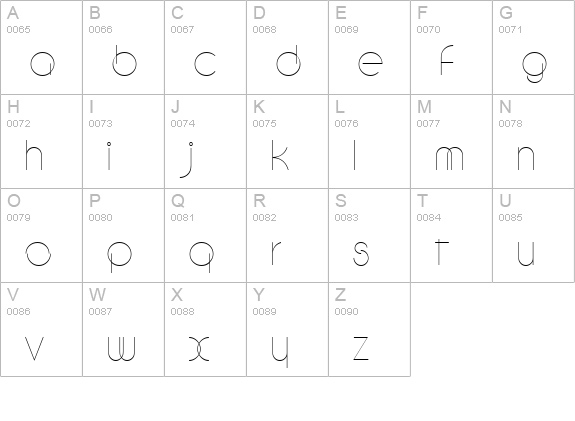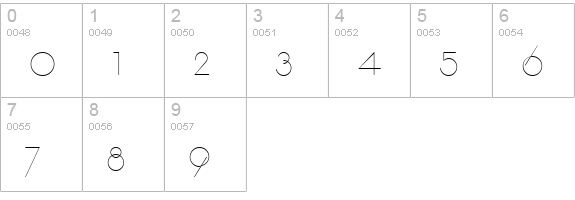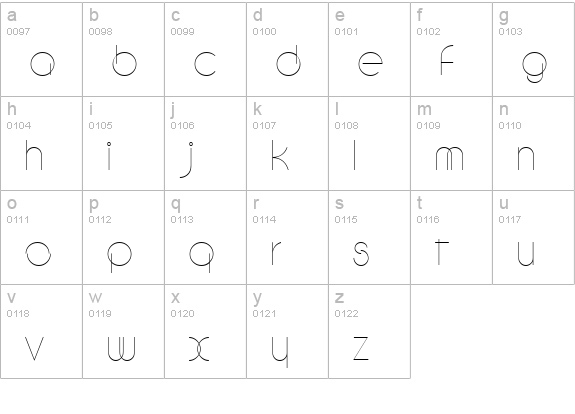
Debevic Circular is a modern and sleek font that exudes a sense of sophistication and elegance. With its rounded edges and smooth curves, this typeface is perfect for adding a touch of modernity to any design project. Whether you are working on a branding campaign, a website design, or a print layout, Debevic Circular is sure to make a bold statement. What makes Debevic Circular even more appealing is the fact that it is available for free download at FontsMarket.com. This means that you can easily access this stunning font and use it in your projects without any additional cost. Don't miss out on the opportunity to enhance your designs with the beauty and versatility of Debevic Circular - download it today and let your creativity shine!